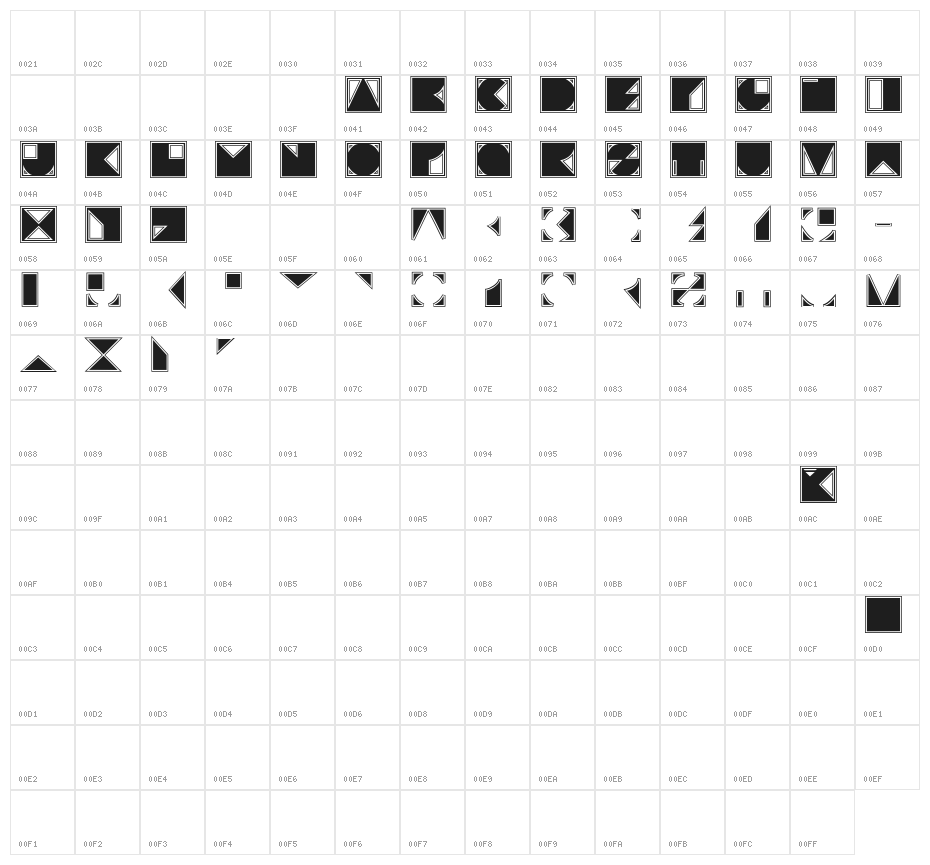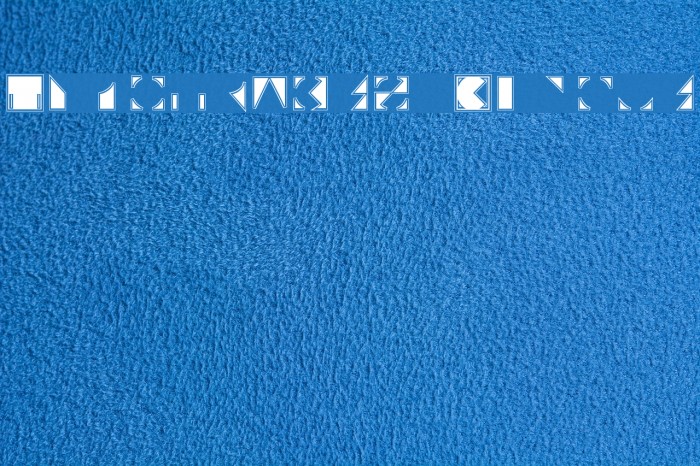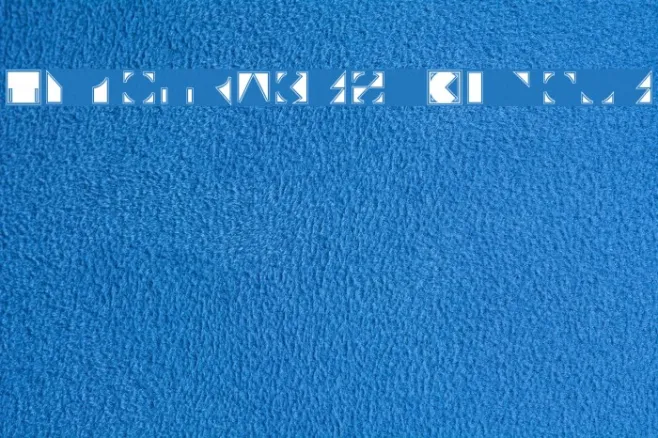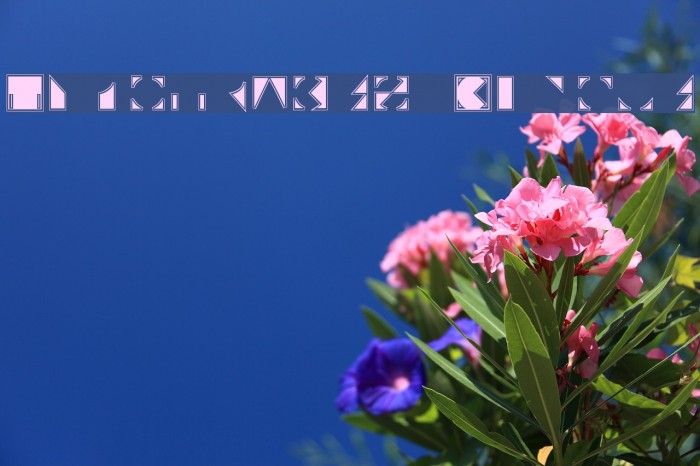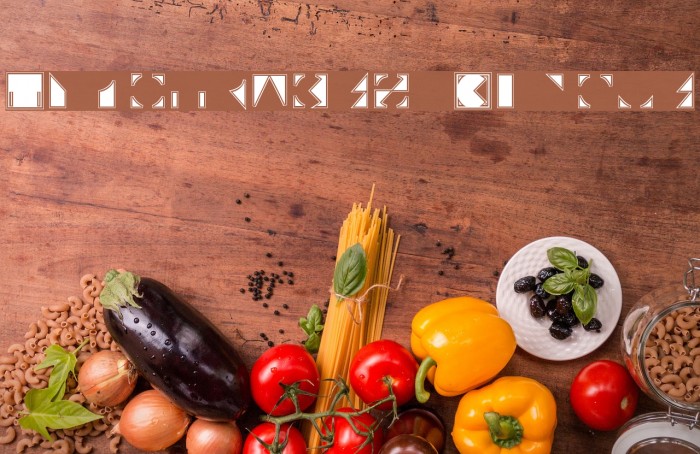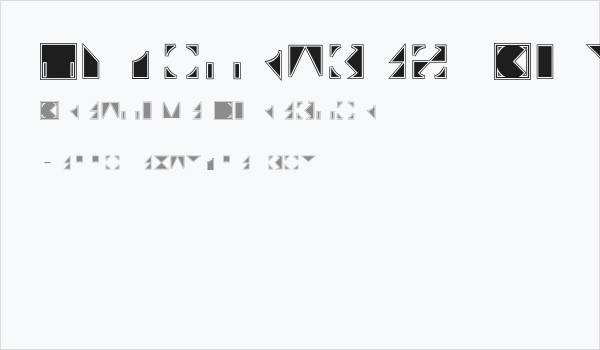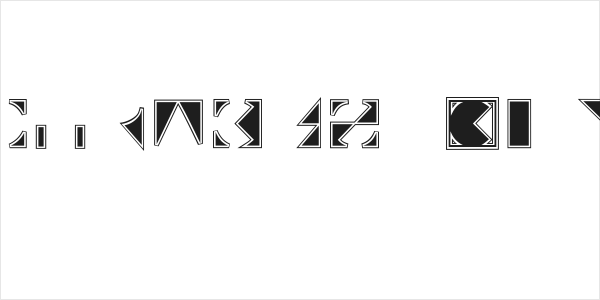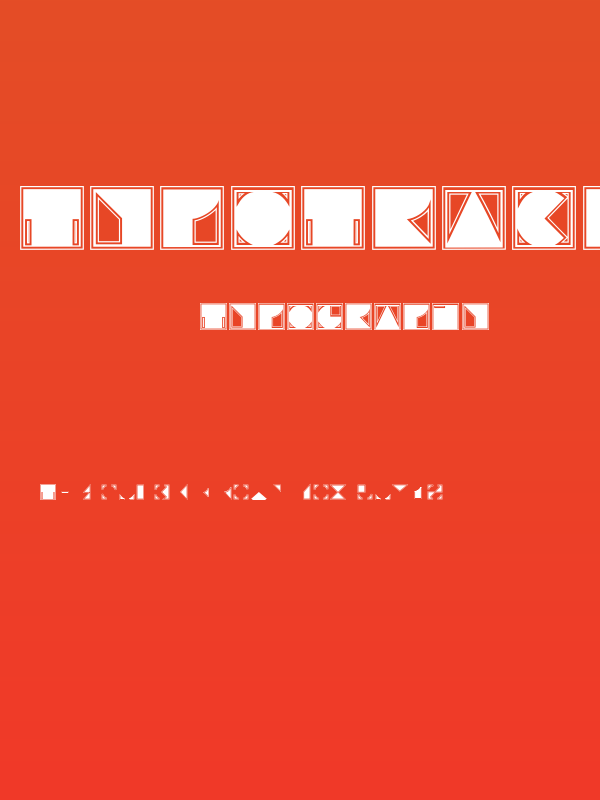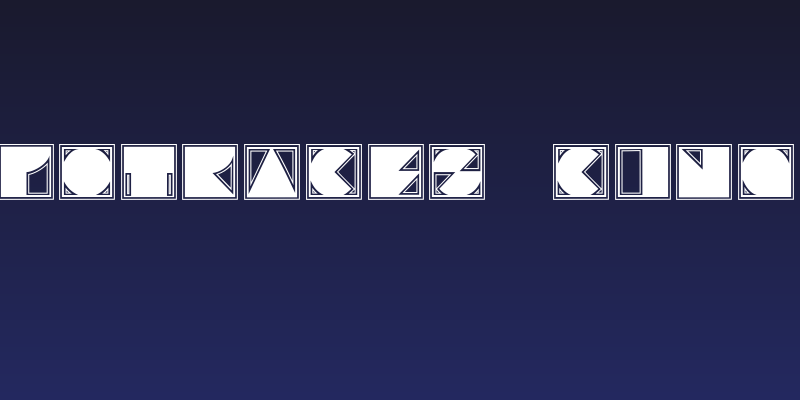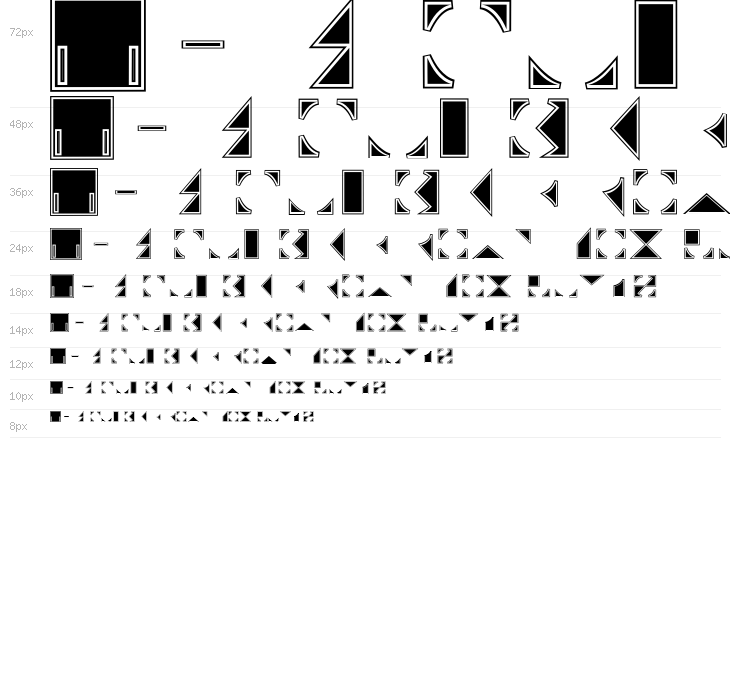
Typotraces-Cinque Font
Typotraces-Cinque Description
This font features a highly geometric and abstract design, with each character enclosed within a square or triangular frame. The letters are composed of bold, angular shapes, creating a striking visual impact. The use of negative space within the characters adds to the complexity and modernity of the design. The font is primarily uppercase, with a consistent use of sharp angles and straight lines, giving it a futuristic and avant-garde appearance. The characters are evenly spaced, maintaining a uniformity that enhances readability despite the intricate design.